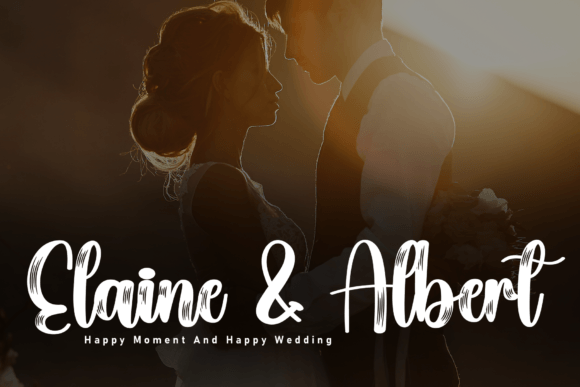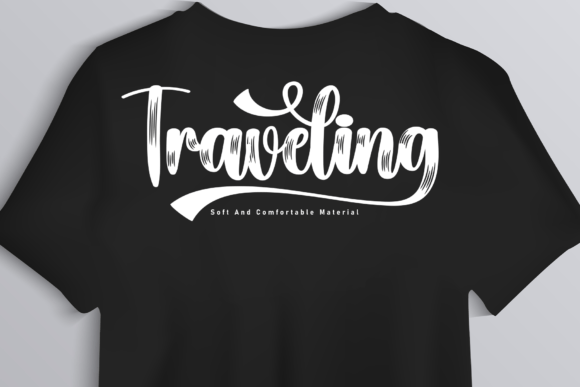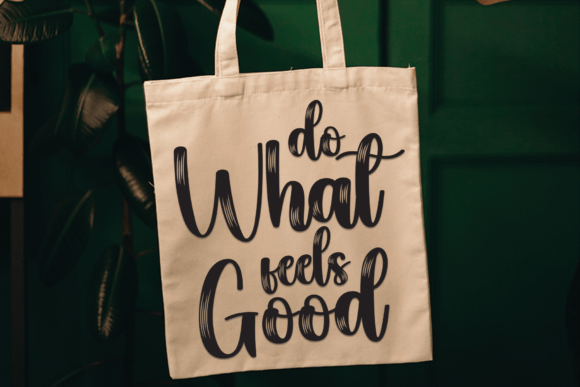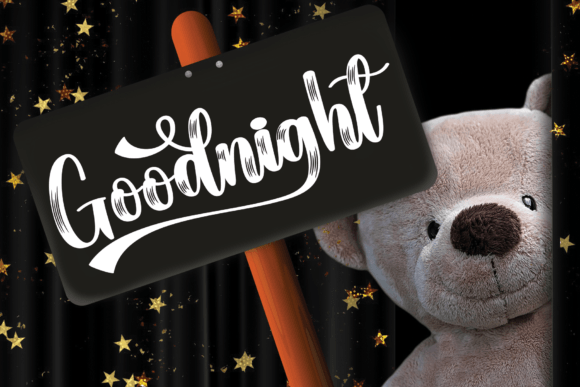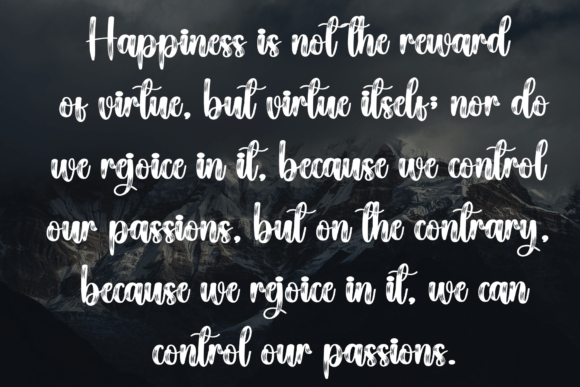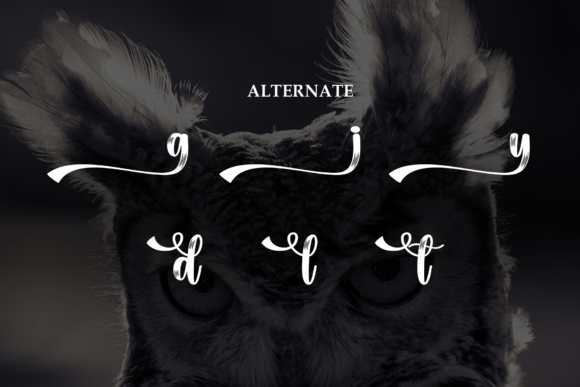
Introduction to Scowlingly Font
Scowingly is a lovely and timeless handwritten font.
Key Features of Scowlingly Font
Why Choose Scowlingly Font?
Scowlingly Font offers exceptional quality and versatility, making it a valuable addition to your design toolkit. Whether you’re creating for personal projects or commercial use, Scowlingly Font delivers professional results.